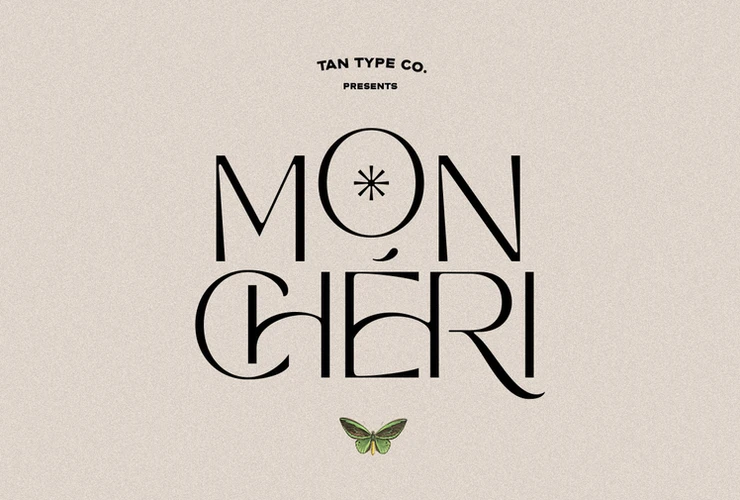
TAN Mon Cheri specimen and verified specs
- Styles: 1 (Regular)
- Glyphs: 407
- Language support: Basic Latin (English), Western European, Central & Eastern European
- OpenType features: standard ligatures, discretionary ligatures, stylistic alternates, kerning, fractions
- Designer: Novia Jonatan (TanType Co.)
Design and character
TanType calls TAN Mon Cheri “an elegant sans serif” with “simple letter shapes with playful ligatures, keeping its legibility high.” What the specimens show is a light sans with real stroke contrast. Strokes swell and thin as they curve, much as a serif font’s do, so it looks closer to a fashion masthead than to a typical geometric sans.
The decoration is small and easy to spot:
- The dots on i and j are four-pointed sparkles, and the same star shape replaces the dots on the question mark and exclamation point.
- The lowercase t has no crossbar. A small curl sits on top of the stem instead, which turns “the” and “sweet” into slightly unusual words.
- The W and w cross their middle strokes.
- The A and H have a gently curved left stroke, and the Q ends in a long, looping tail.
Otherwise the forms are plain: a two-storey a, a single-storey g, open counters and tall ascenders. The figures are thin and elegant, with a flagged 1 and an open 4. Because the hairlines are fine, the font looks best large, but the simple skeleton keeps short sentences readable.
- One style: Regular. No weights beyond that, and no variable version.
- 407 glyphs: upper and lowercase, figures, punctuation and accented letters, plus the ligatures and alternates described below.
Language support and OpenType features
The font covers Basic Latin plus Western and Central/Eastern European accented letters, so French, German, Spanish, Polish and Czech text should all set correctly.
Five OpenType features are included:
- Standard ligatures: replacement shapes for certain letter pairs, applied automatically in most apps.
- Discretionary ligatures: the more decorative “playful ligatures” from the listing. They are off by default; enable them in the OpenType panel or menu in Illustrator, InDesign or Photoshop.
- Stylistic alternates: alternative letter shapes, reached through the Glyphs panel in Adobe apps or the typography options in Affinity and Figma.
- Kerning: built-in spacing between letter pairs.
- Fractions: formats 1/4 and similar as true fractions when switched on.
Best uses and font pairings
TAN Mon Cheri suits beauty and wellness brands, jewellery and candle labels, wedding and event stationery, Instagram graphics and website headings. The sparkle dots are a ready-made detail for logos, so try your brand name and see whether it includes an i or j.
Who designed TAN Mon Cheri?
Novia Jonatan of TanType Co., per the font files.